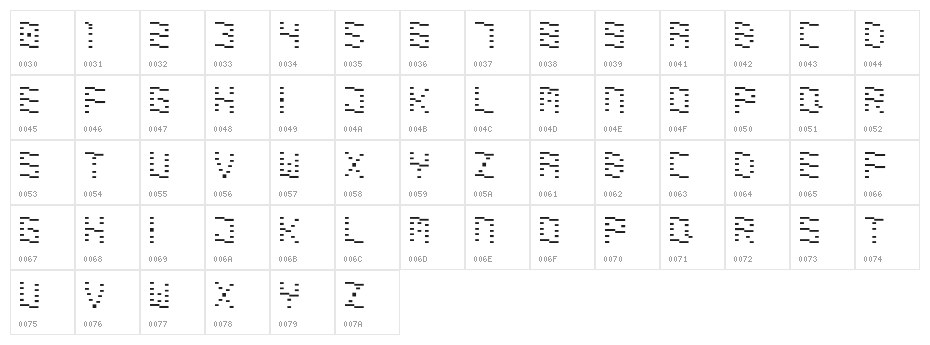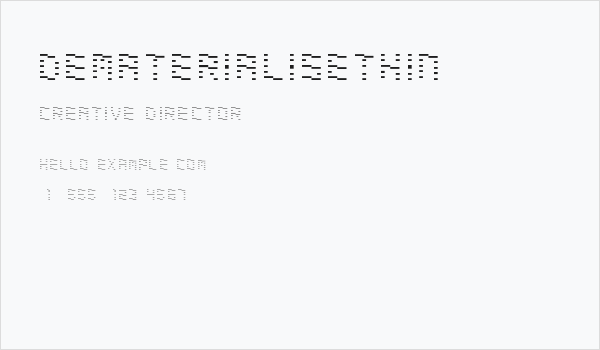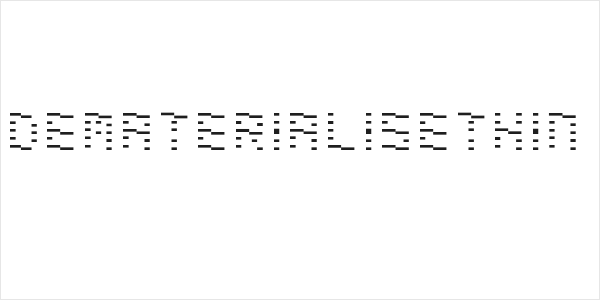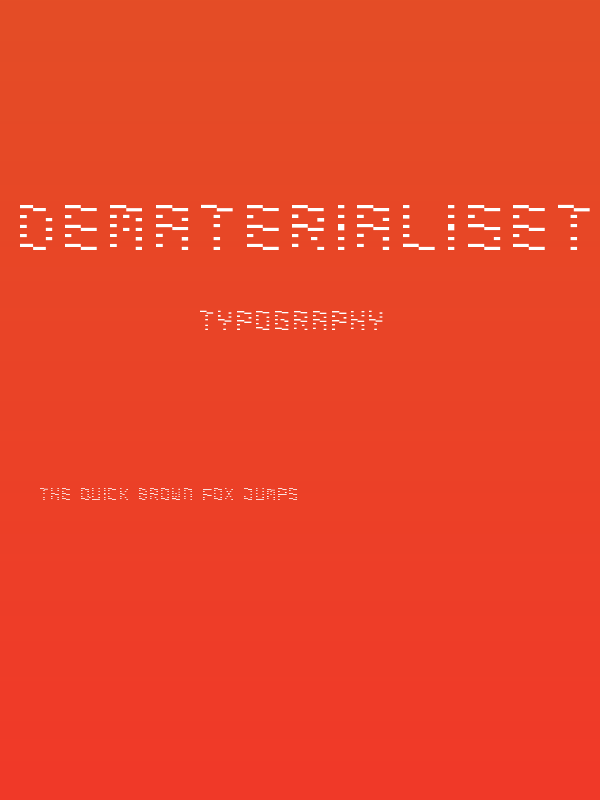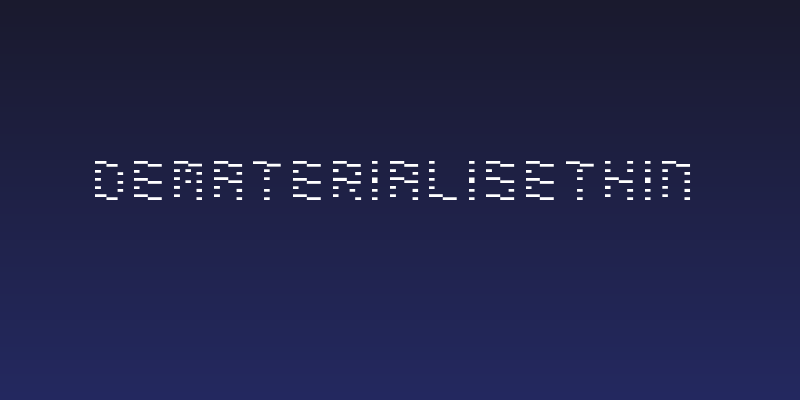
DematerialiseThin Font
DematerialiseThin Description
This font features a unique, futuristic design characterized by a series of horizontal lines and gaps that form each character. The style is reminiscent of digital or electronic displays, giving it a modern and tech-inspired appearance. The uppercase and lowercase letters maintain a consistent structure, with each character composed of evenly spaced segments. Numbers and special characters follow the same pattern, ensuring uniformity across the font. The overall look is clean and minimalistic, making it suitable for projects that require a contemporary and innovative touch.
| Proposed Projects | Ideal for digital interfaces, tech branding, sci-fi themed designs, and modern art installations. |